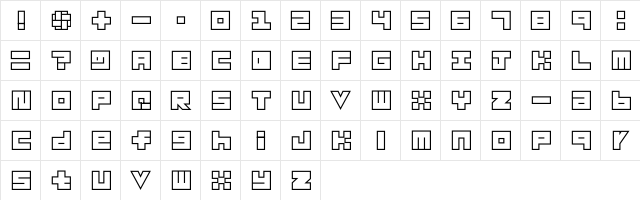
Habesha_Blocks_OUTLINES outlines Font Preview
Habesha_Blocks_OUTLINES outlines
Design Context for Habesha_Blocks_OUTLINES Typeface
Habesha_Blocks_OUTLINES brings ornamental detail and strong personality to headlines and identities, where visual impact matters more than quiet functionality.
Font Pairing: Pair with a clean neutral sans-serif for body copy to let Habesha_Blocks_OUTLINES's character lead without overwhelming the composition.
Pro Tip: Use Habesha_Blocks_OUTLINES exclusively at display sizes — it was designed to be seen, not read at length. Let a neutral companion handle body copy.